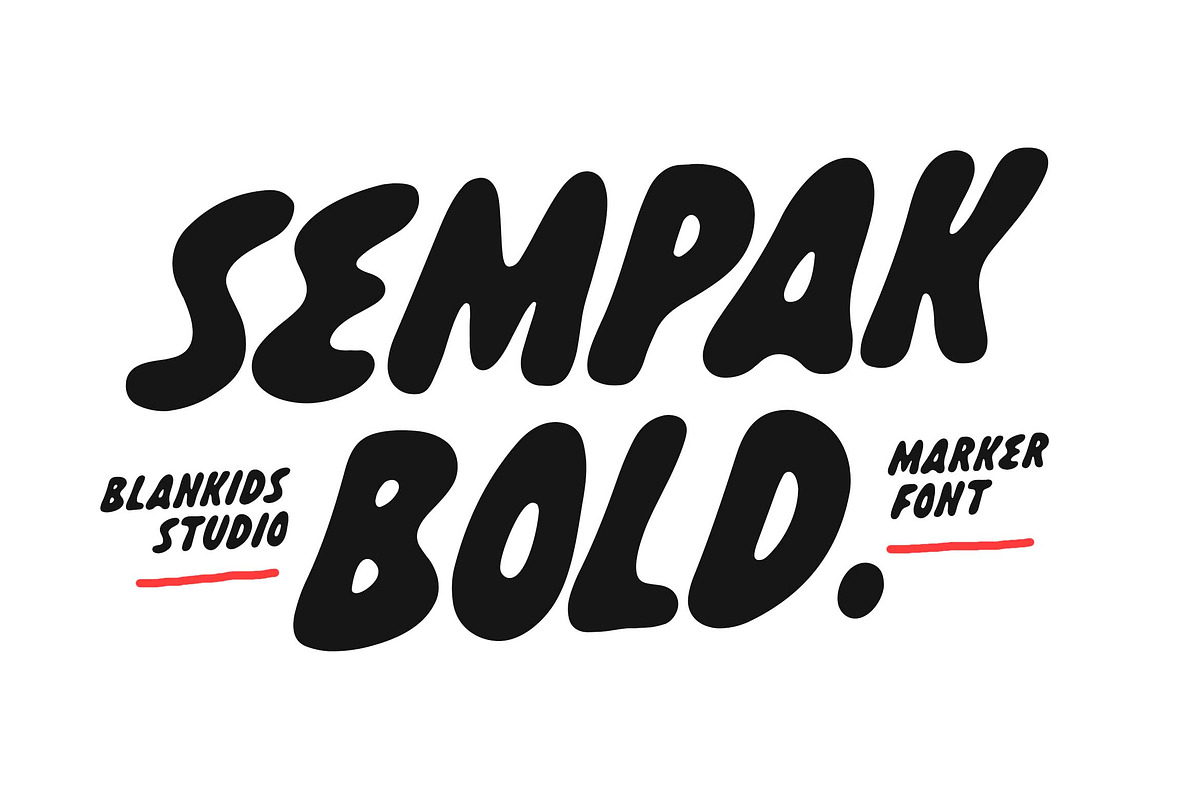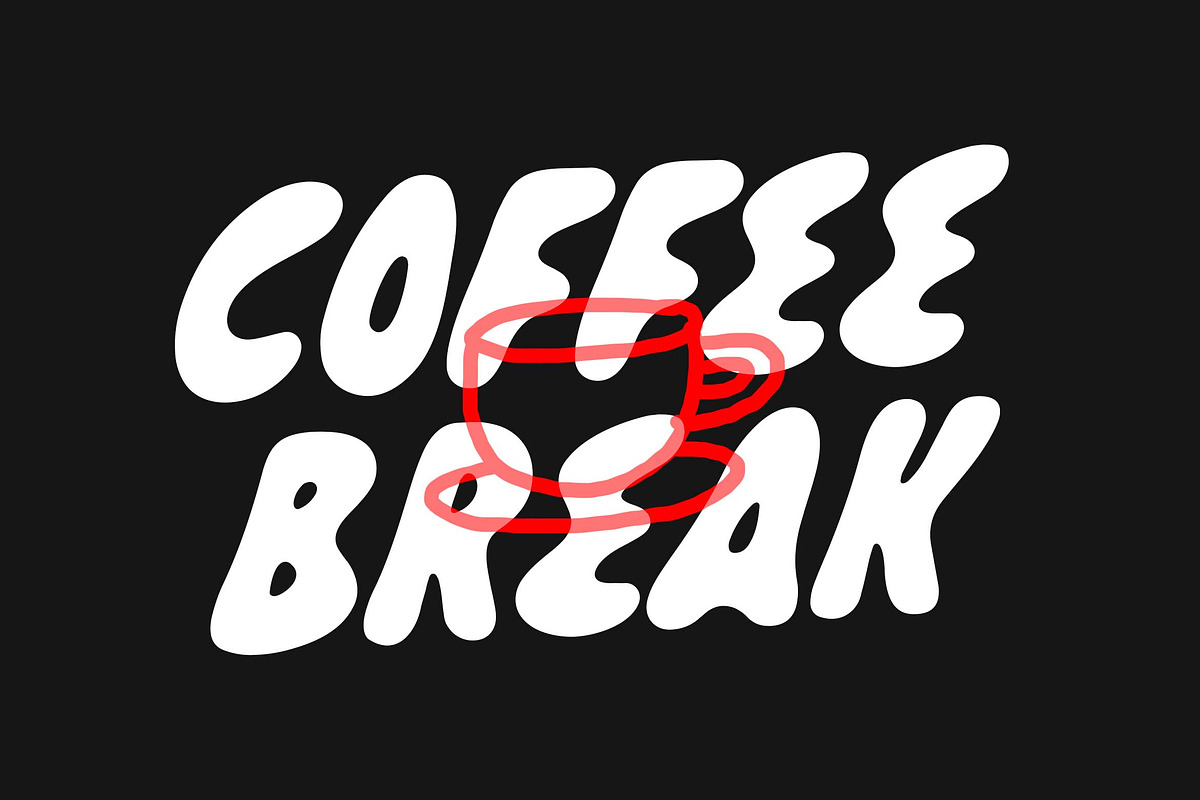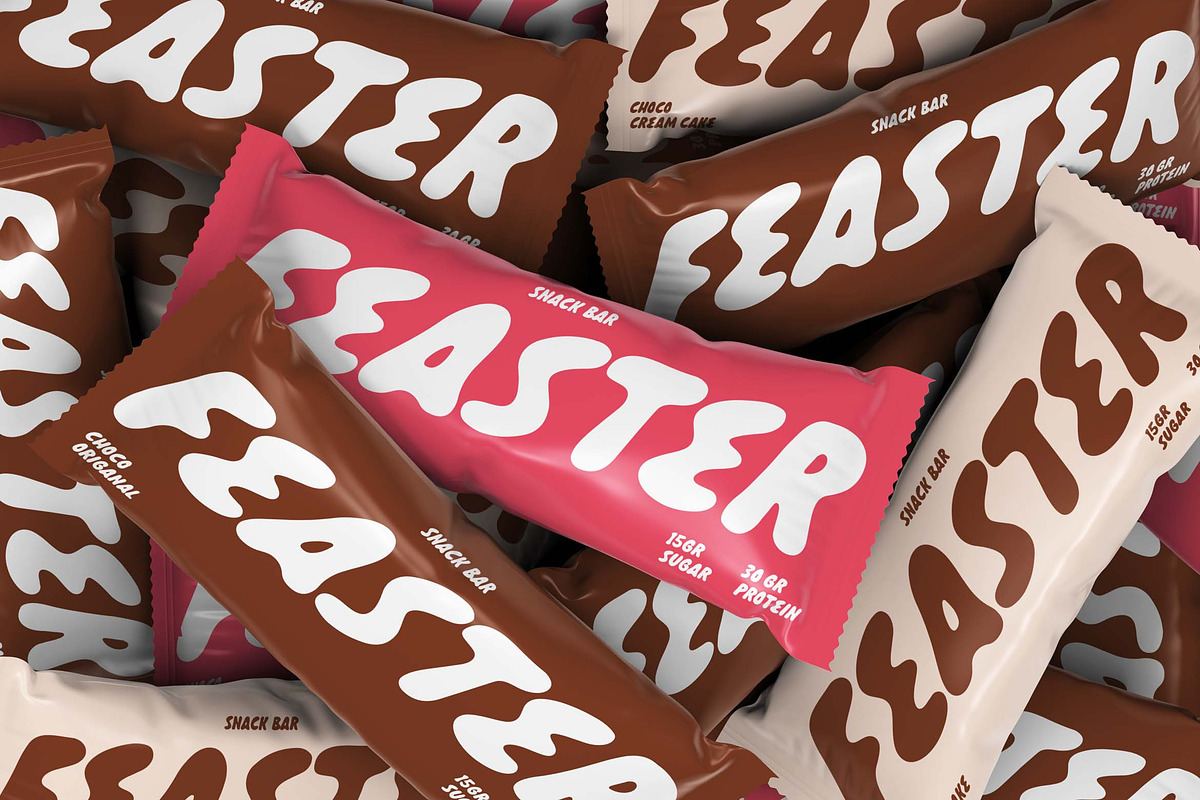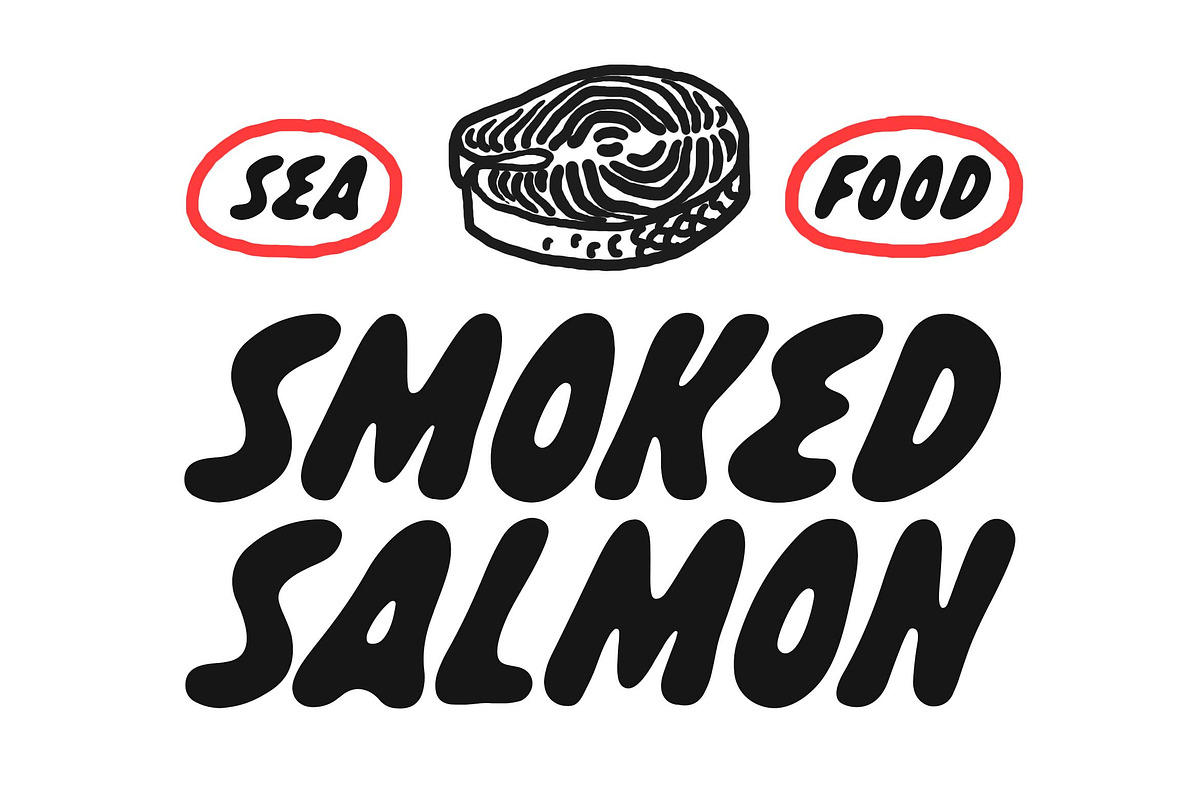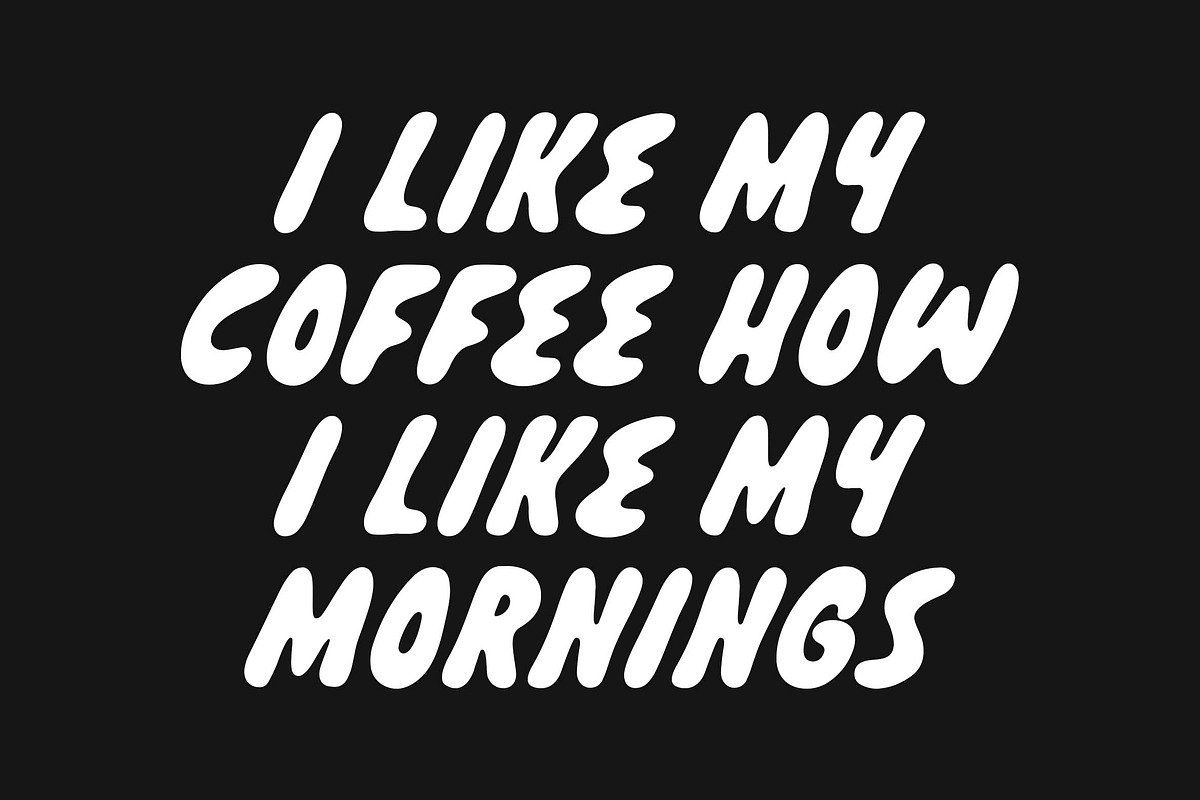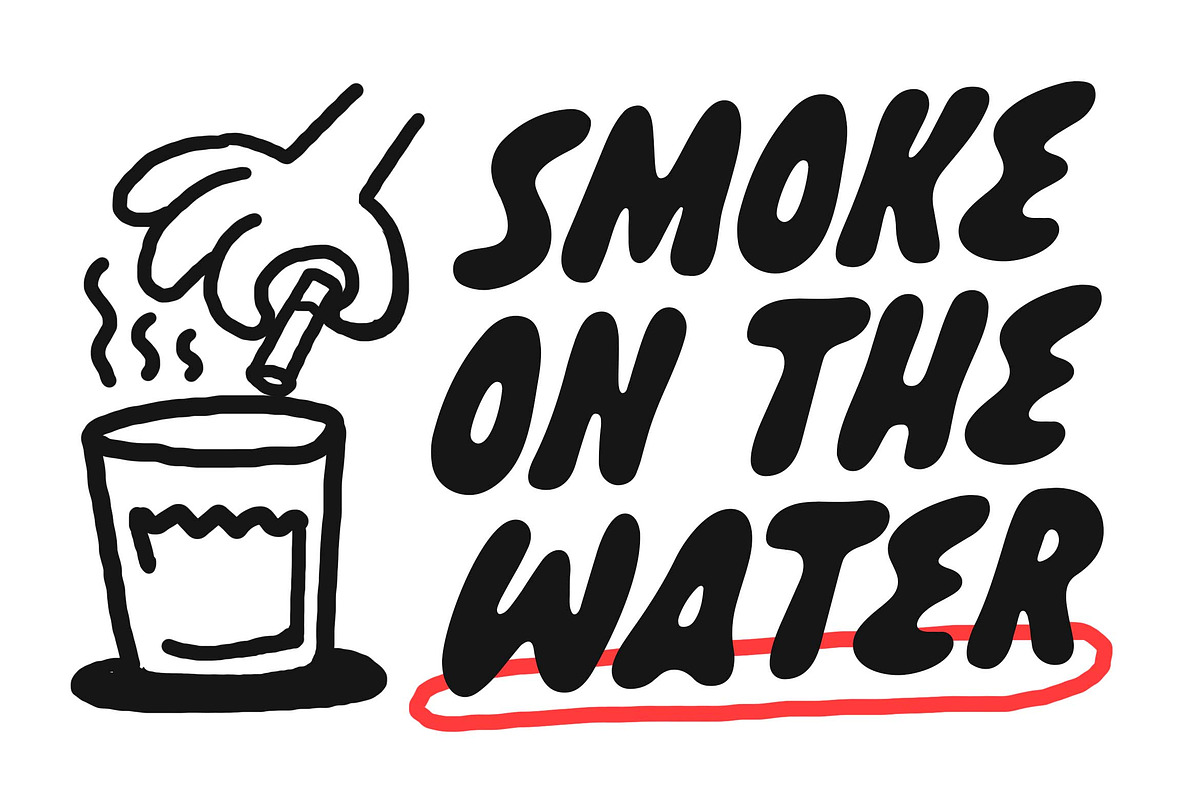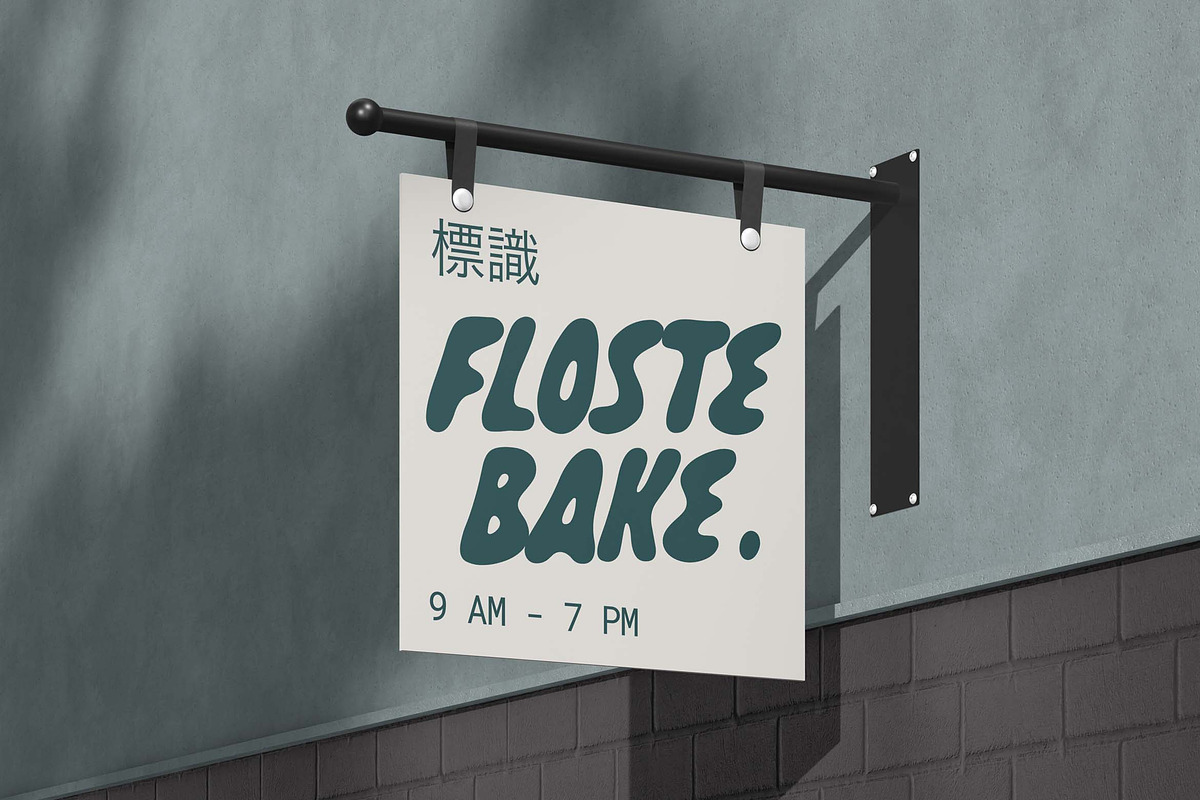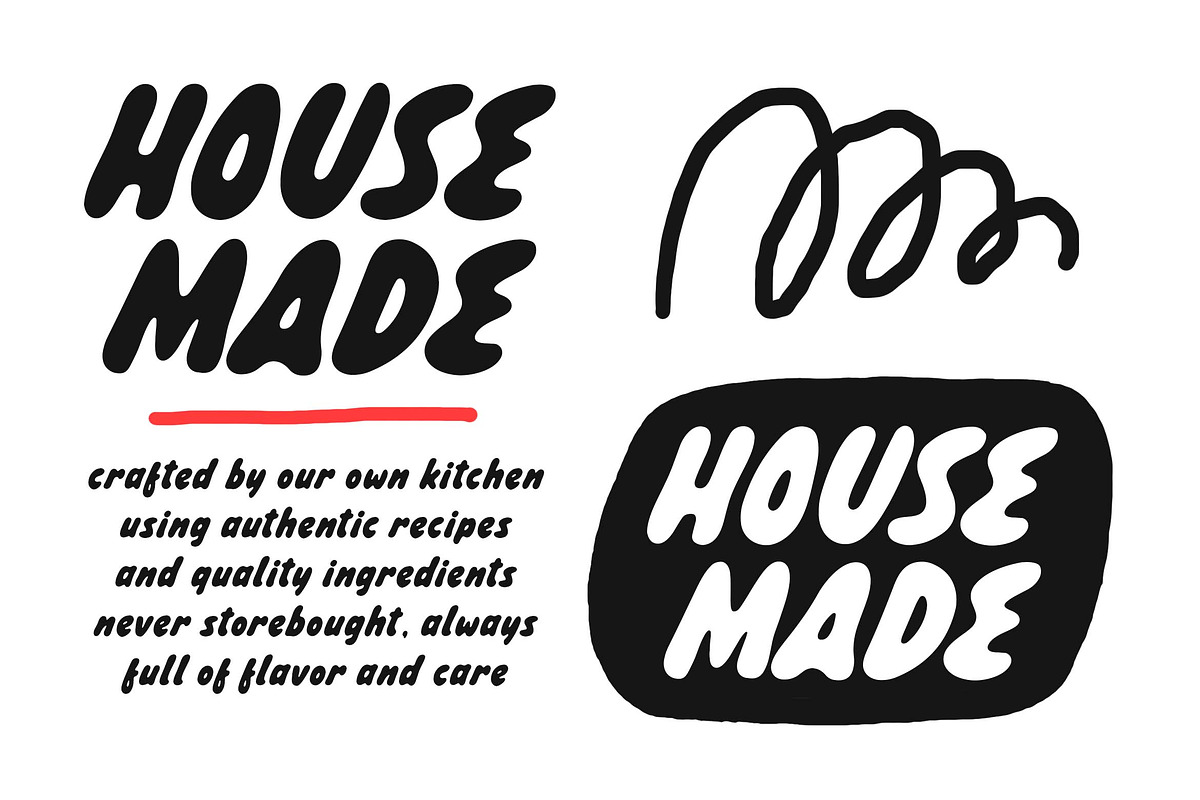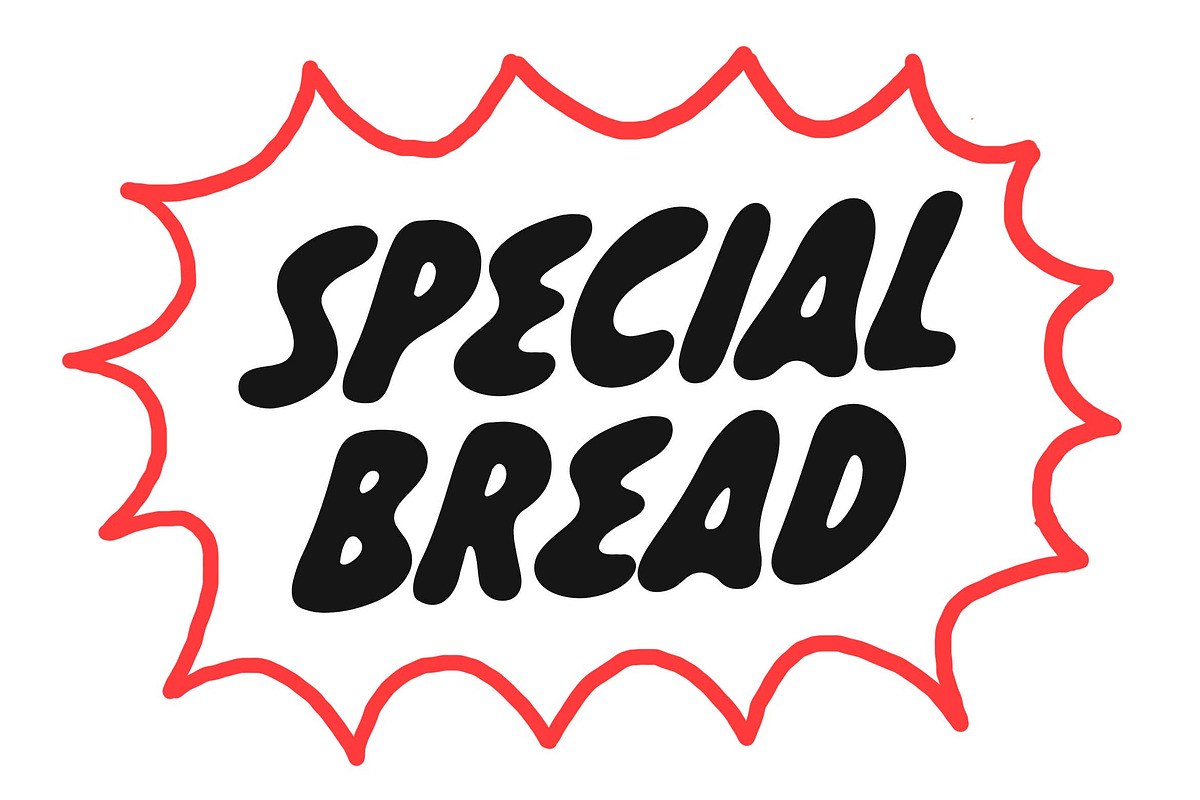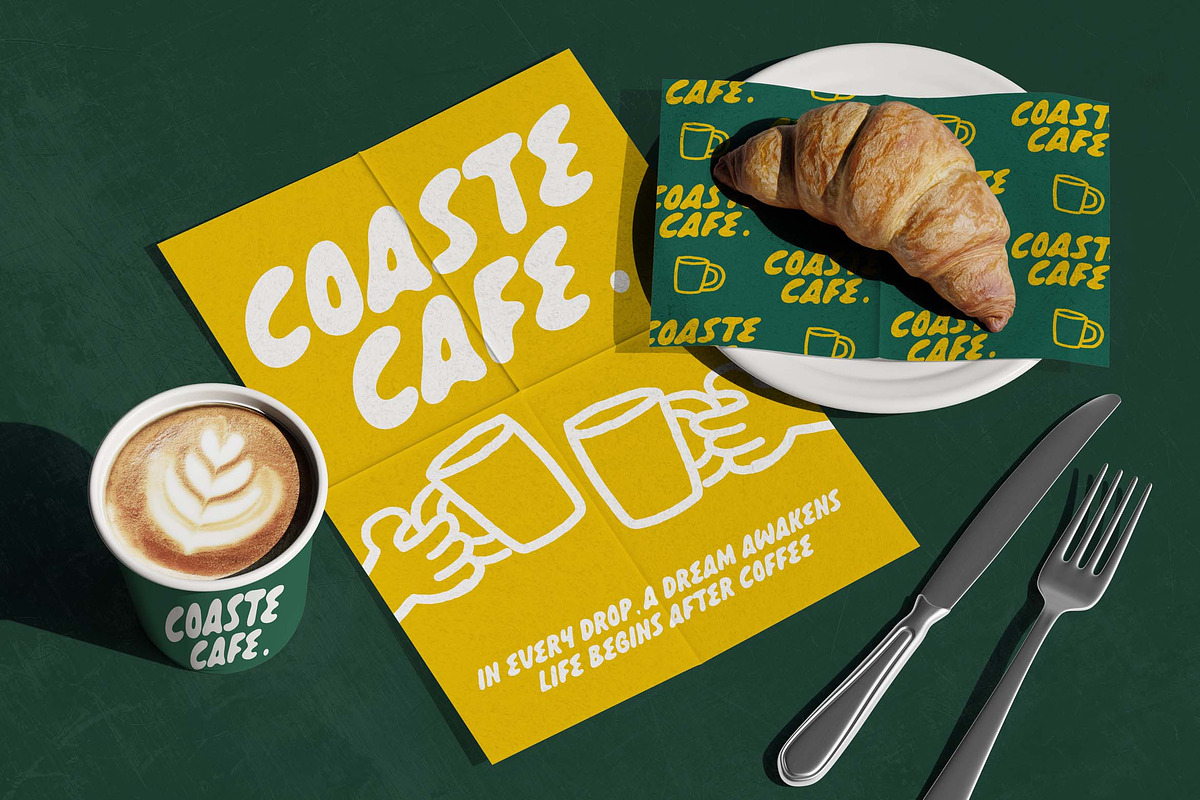
Perfect Charm an Unique Marker Font
Bring a touch of fun and bold personality to your design with Perfect Charm, a unique hand-drawn marker font that radiates confidence and creativity. Its smooth curves and bubbly shapes make every word feel alive perfect for branding, packaging, posters, social media, or any project that needs a friendly yet striking look.
Whether you’re designing a playful logo, a catchy headline, or vibrant merchandise, Perfect Charm adds that perfect touch of charm to make your message stand out.
- Uppercase & lowercase letter
- Punctuation & multilingual support
- Natural hand-drawn marker style
- Perfect for logos, posters, packaging, and social media